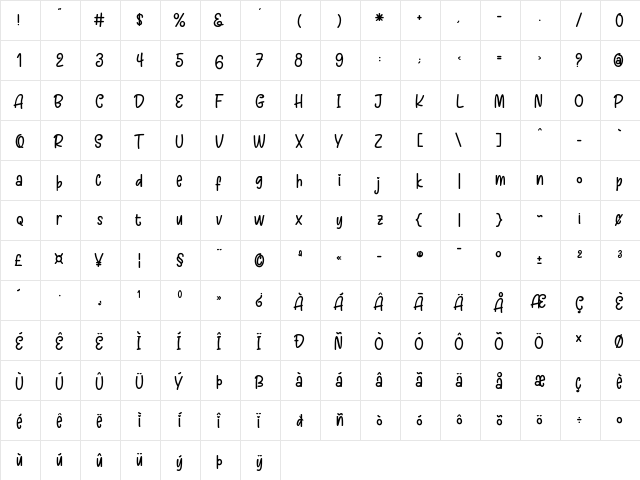
Chocolate Crispy Regular
Design Context for Chocolate Crispy Typeface
Chocolate Crispy is a composed and adaptable typeface that performs quietly and consistently across a wide range of design contexts.